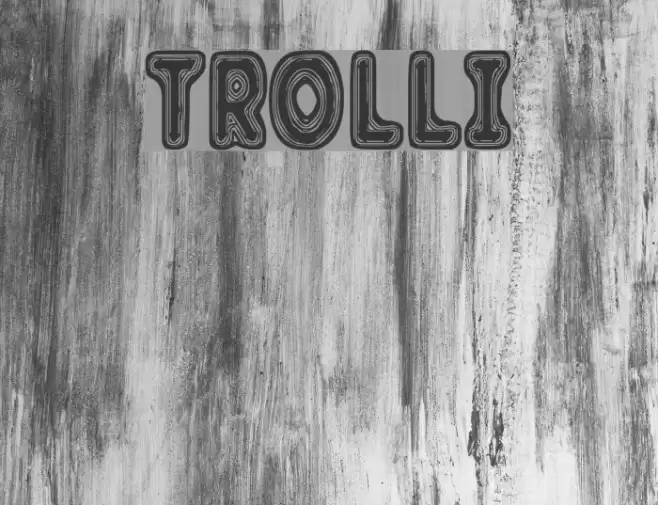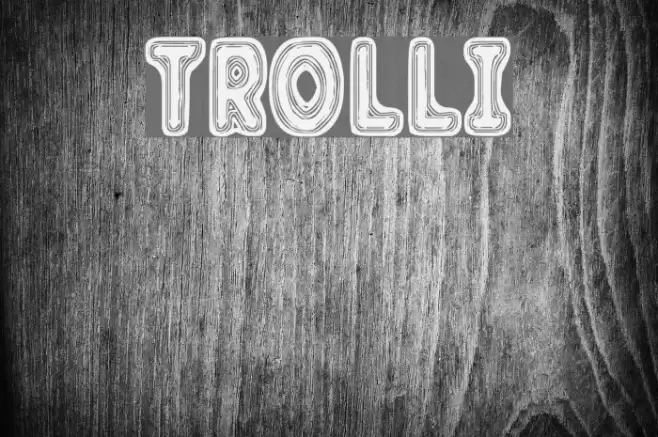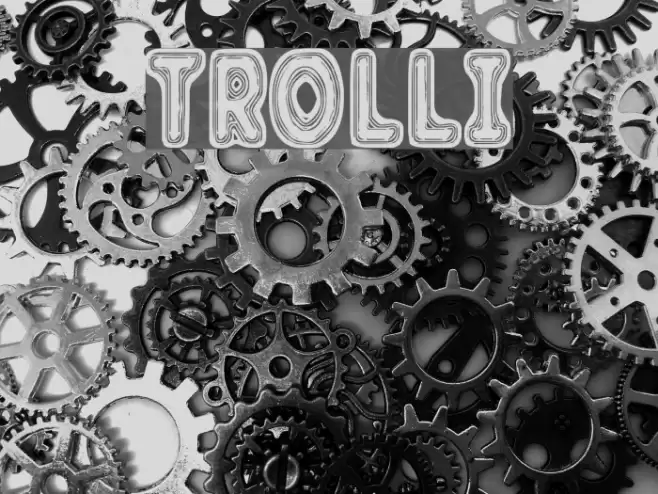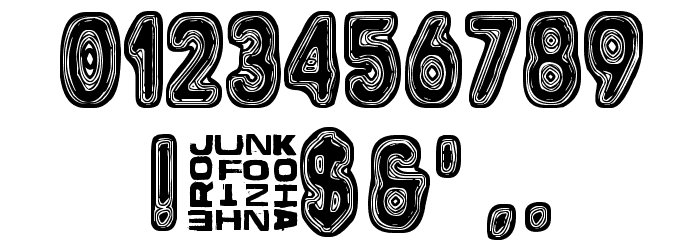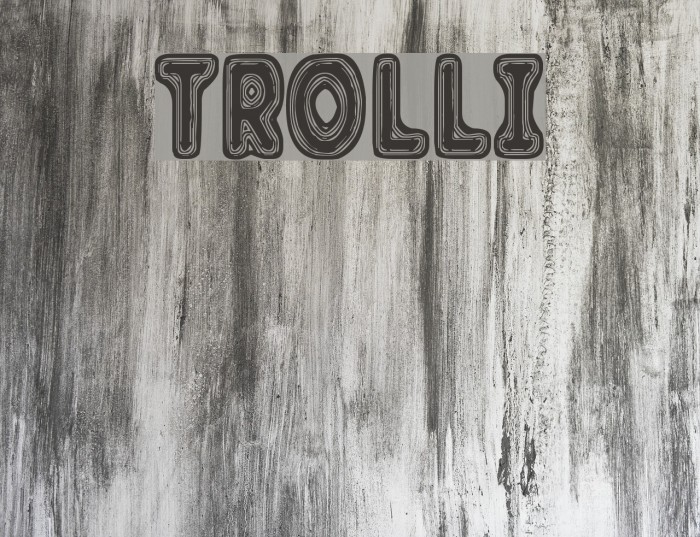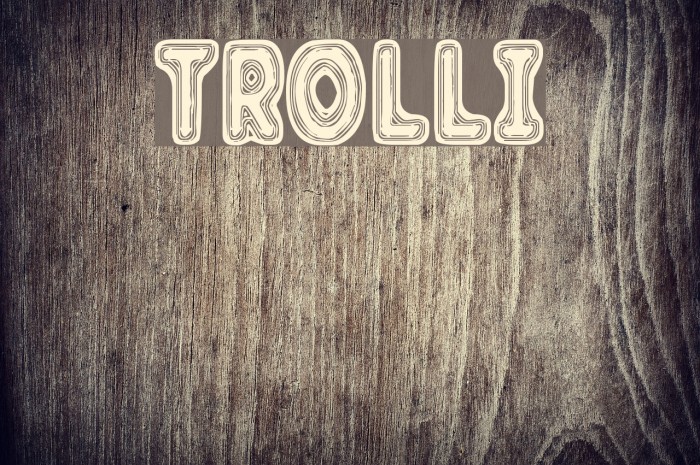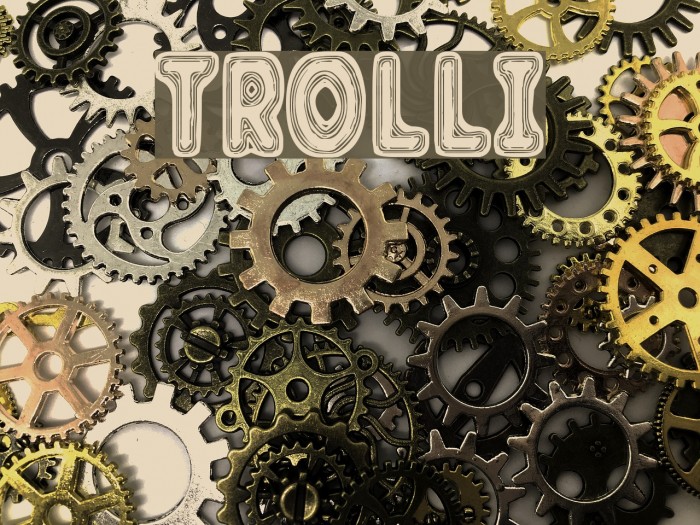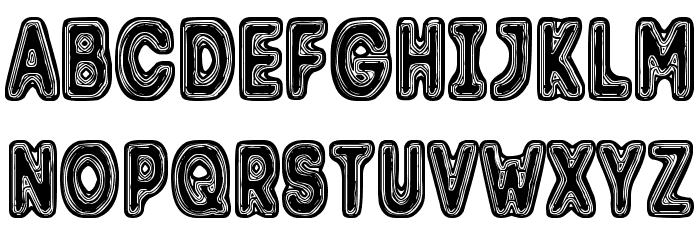
Trolli Font
Trolli Description
This font features a bold, playful design with a unique, layered outline effect that gives each character a sense of depth and dimension. The letters are thick and rounded, with a whimsical, almost cartoonish style that makes them stand out. The font's intricate detailing within each character adds a dynamic and lively feel, making it ideal for creative and eye-catching designs. The uppercase and lowercase letters maintain a consistent style, while the numbers and special characters complement the overall aesthetic. This font's distinctive appearance makes it suitable for projects that require a fun and engaging visual impact.
A bold, playful font with a layered outline effect and whimsical style from Uncategorized fonts.
- Proposed Projects: Ideal for children's books, playful branding, posters, and creative digital content.
- Overall Style: Playful, Whimsical